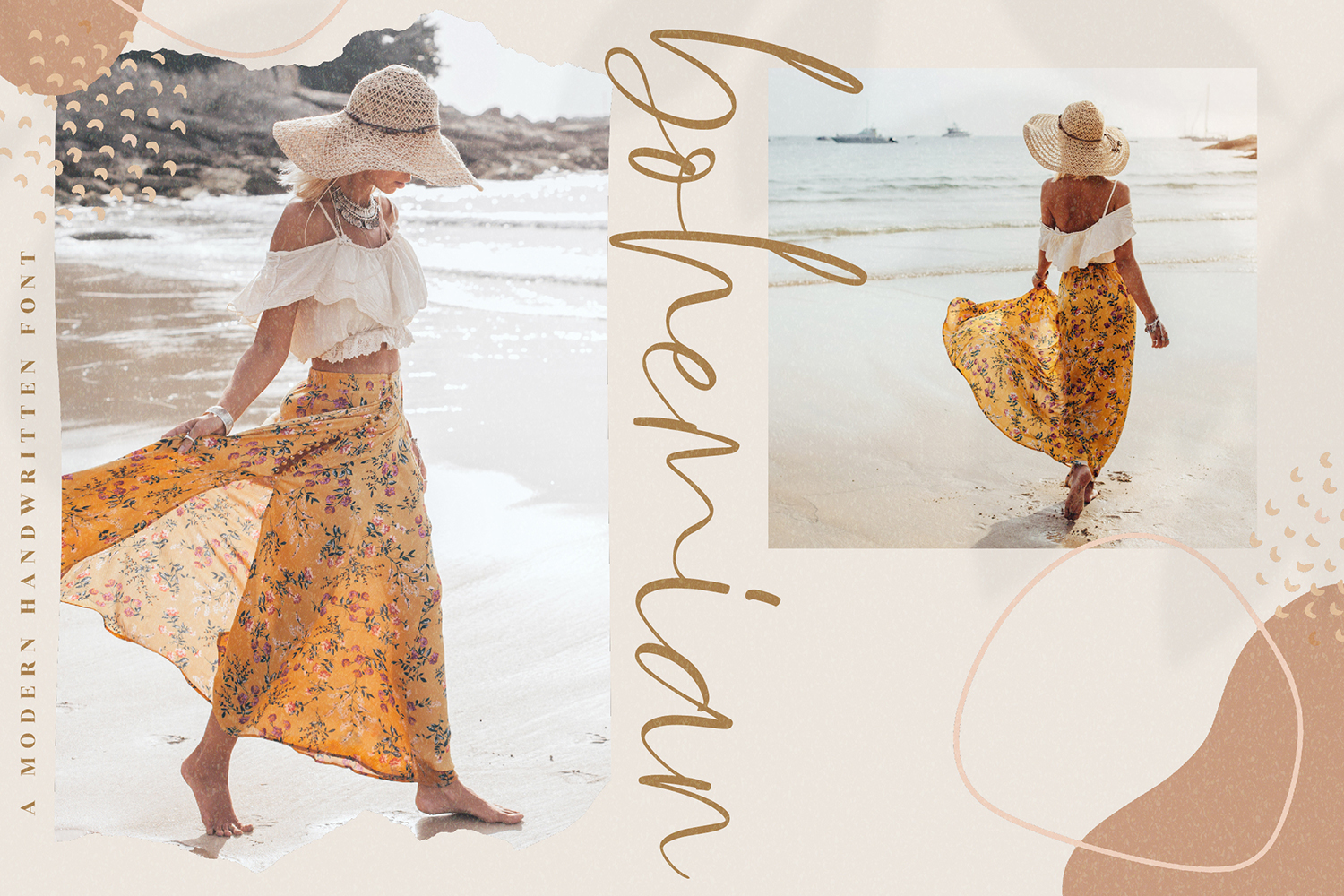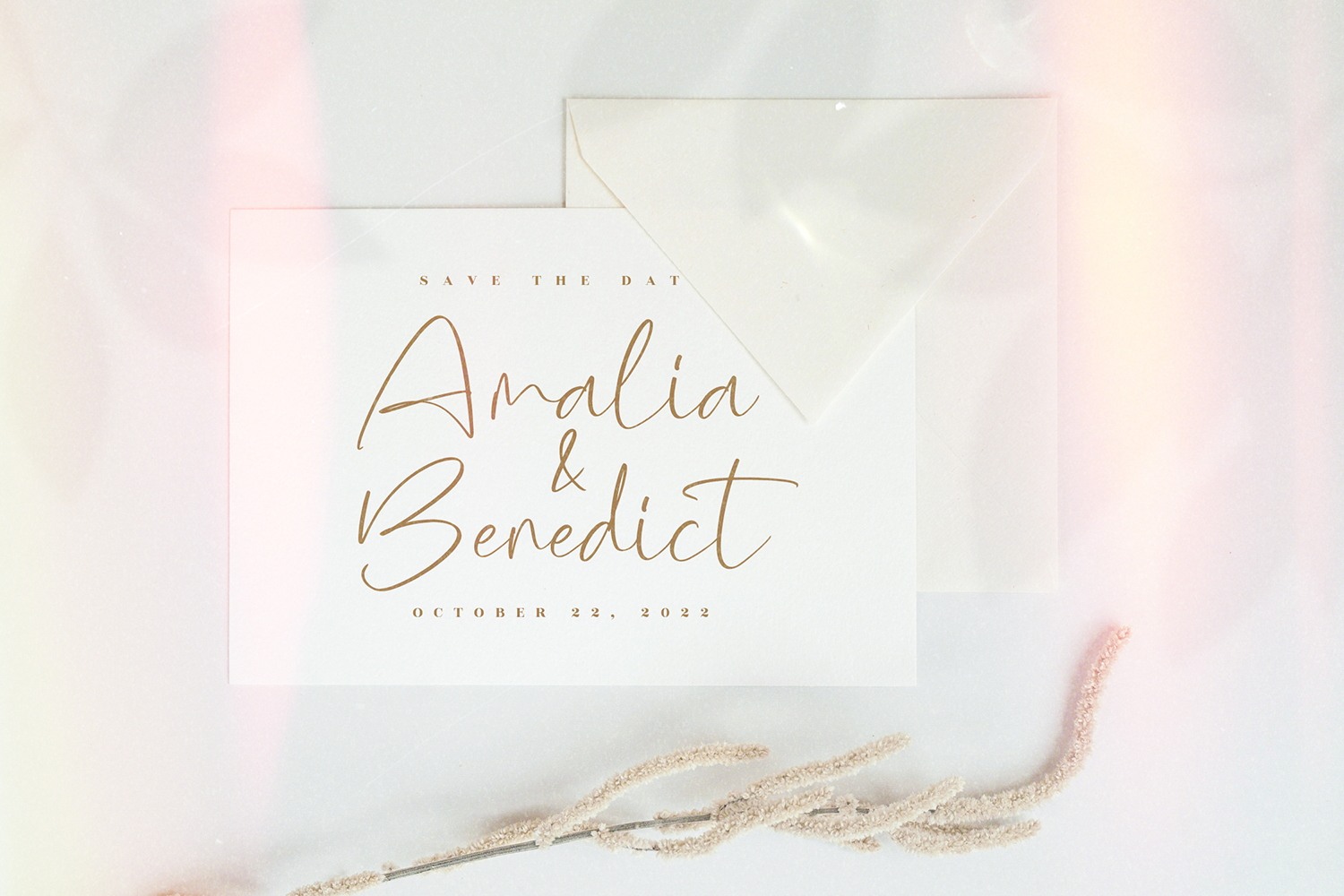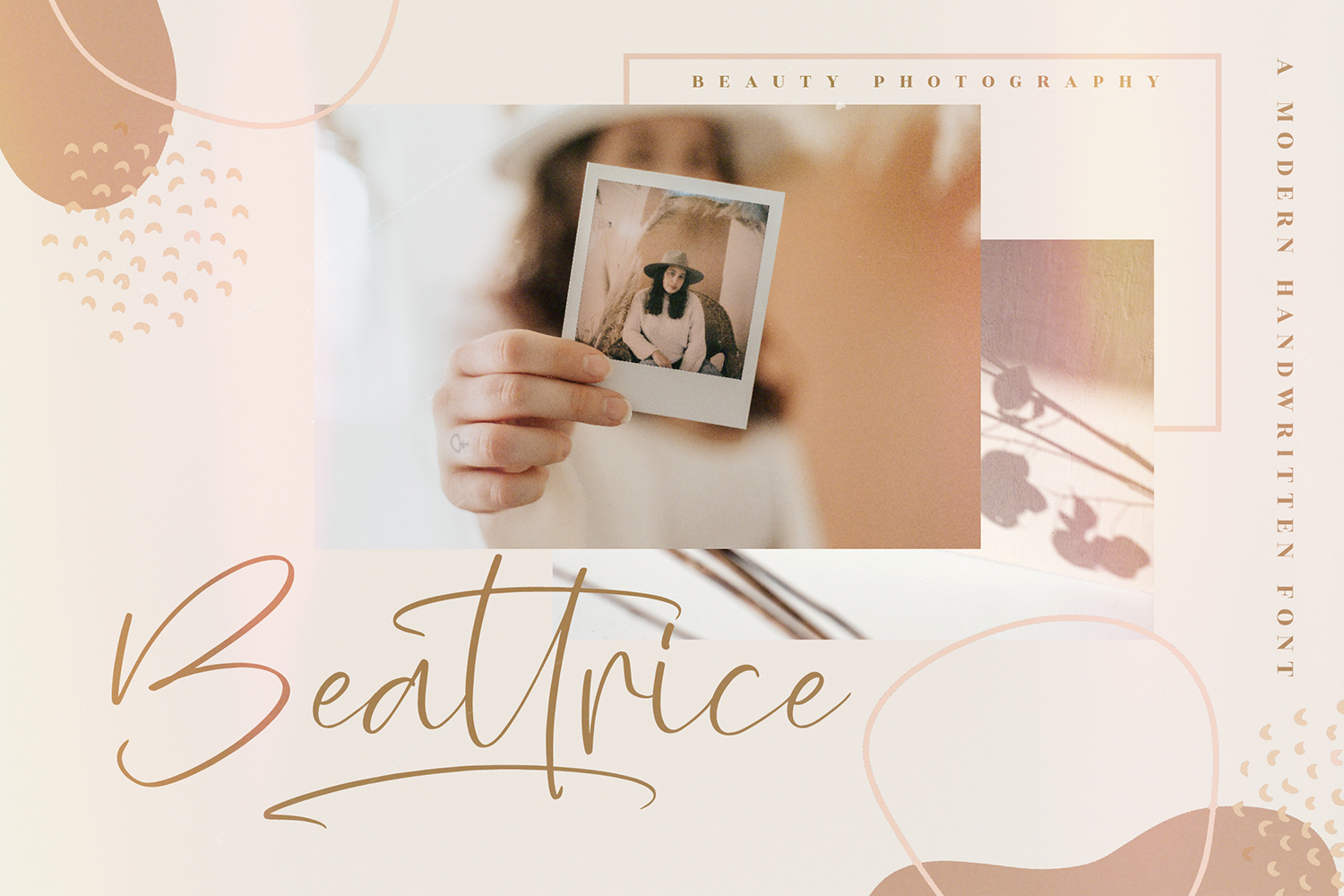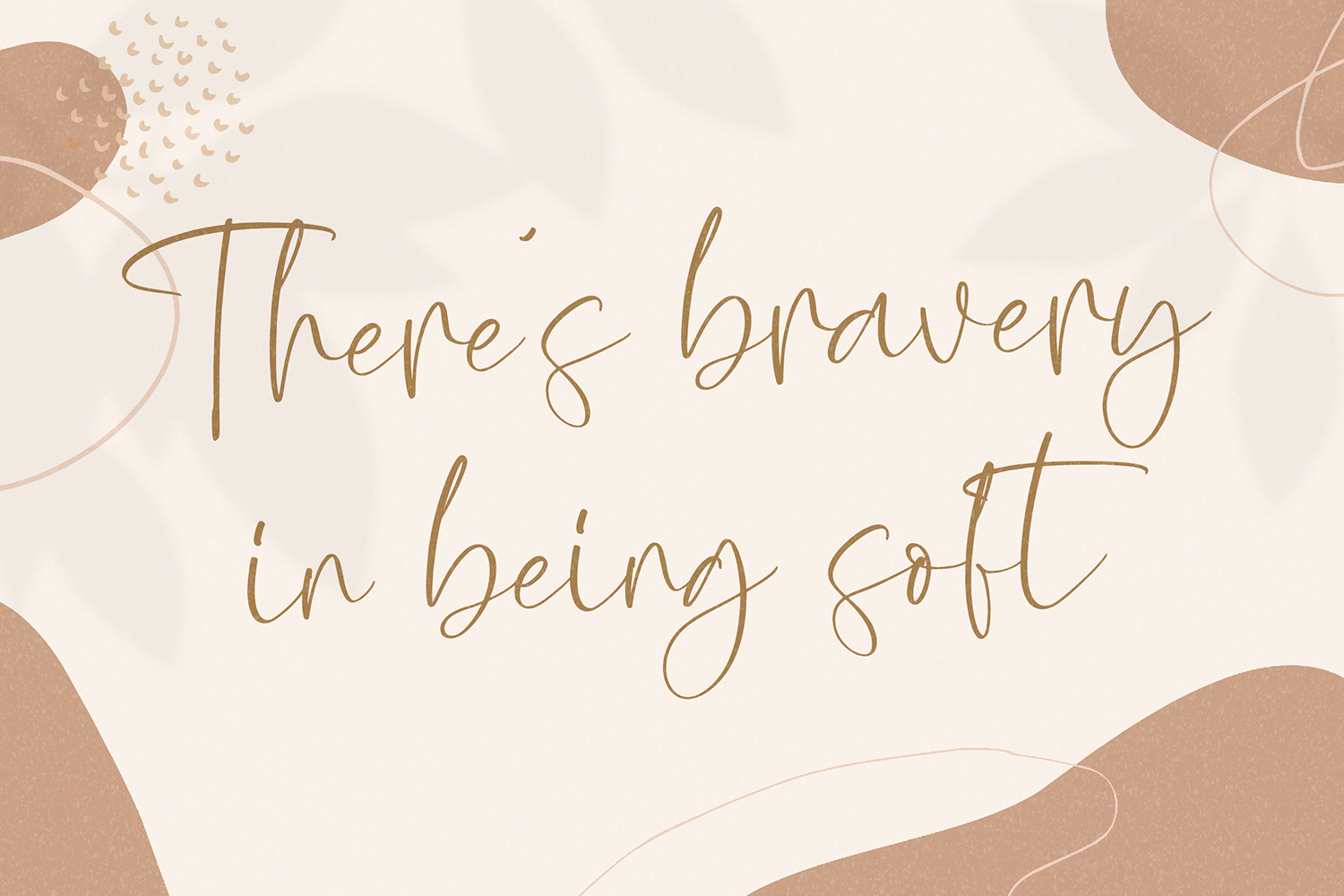
Montthana Free Font
Welcome to Montthana Free Font – a slender script font adorned with charming and playful characters that elegantly dance along the baseline. Incorporate this font into your most creative ideas and experience how it magically enhances them, making them shine brightly amidst the crowd. Embrace Montthana to infuse your designs with its irresistible charm and ensure they stand out with grace and style. This free typeface was designed by a talented Glorytype Studio. If you like it don’t forget to check out the full version.